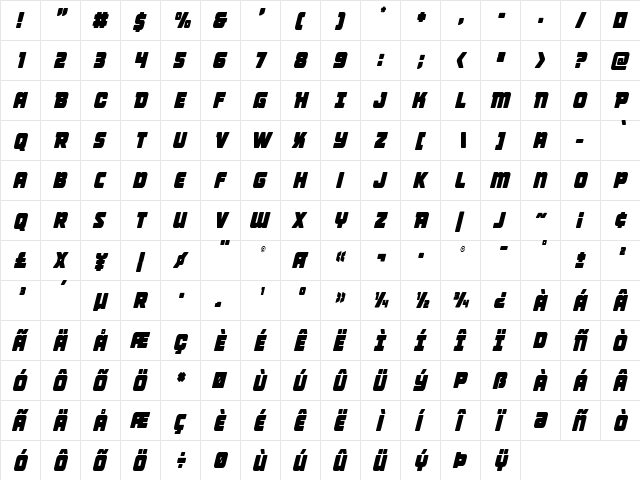
Victory Comics Condensed Semi-Italic Font Preview
Design Context for Victory Comics Condensed Semi-Italic Typeface
Victory Comics Condensed Semi-Italic has an approachable, lighthearted character — its loose, expressive forms are well-suited to children's content, casual branding, and fun-first design. The slanted form adds forward momentum and visual energy.
Font Pairing: Pairs well with a rounded or humanist sans for body copy, maintaining the friendly tone without relying on Victory Comics Condensed Semi-Italic to carry extended reading.
Pro Tip: Use Victory Comics Condensed Semi-Italic at larger display sizes where its expressive character can land. Pair with a clean, simple sans for body copy to maintain readability.